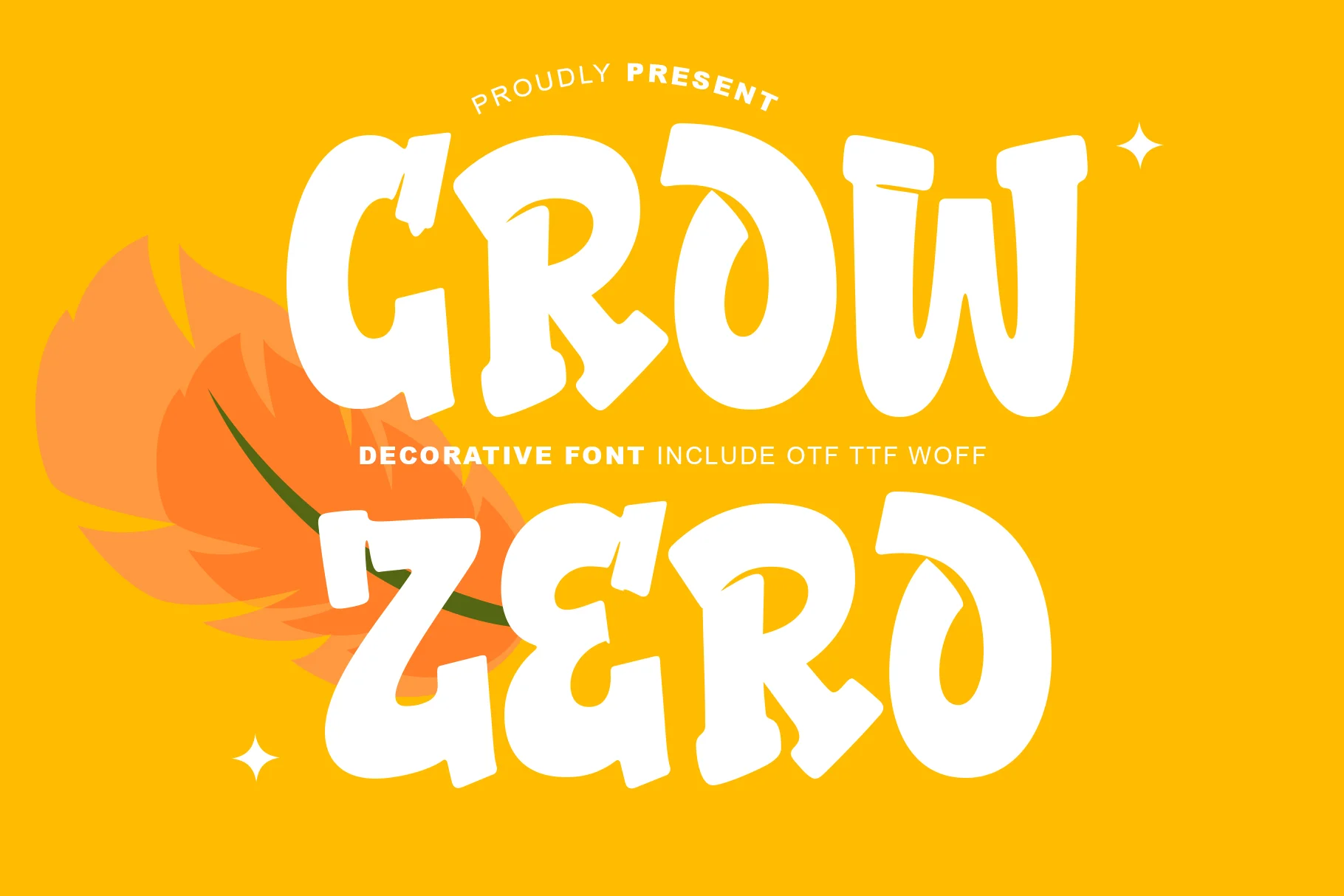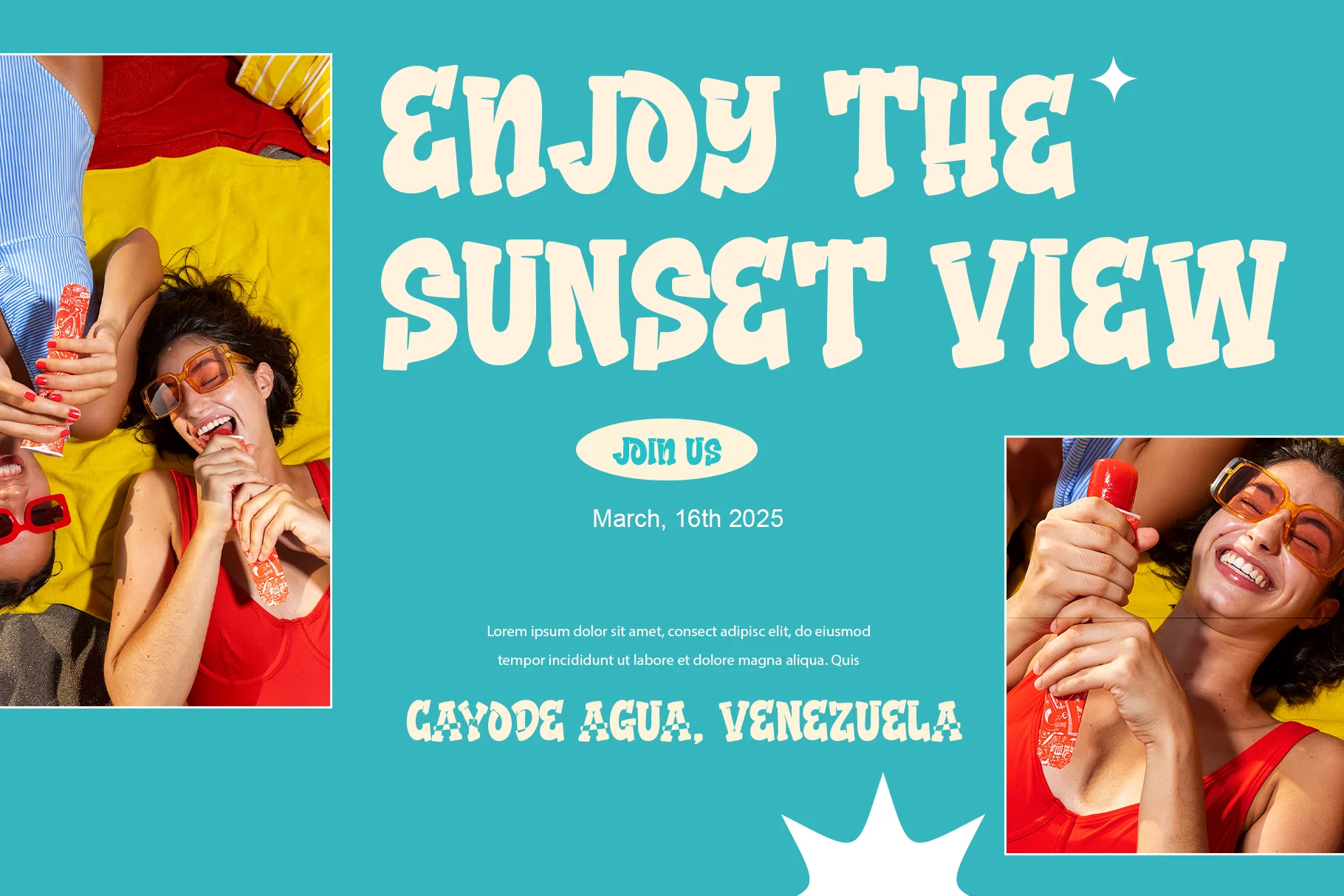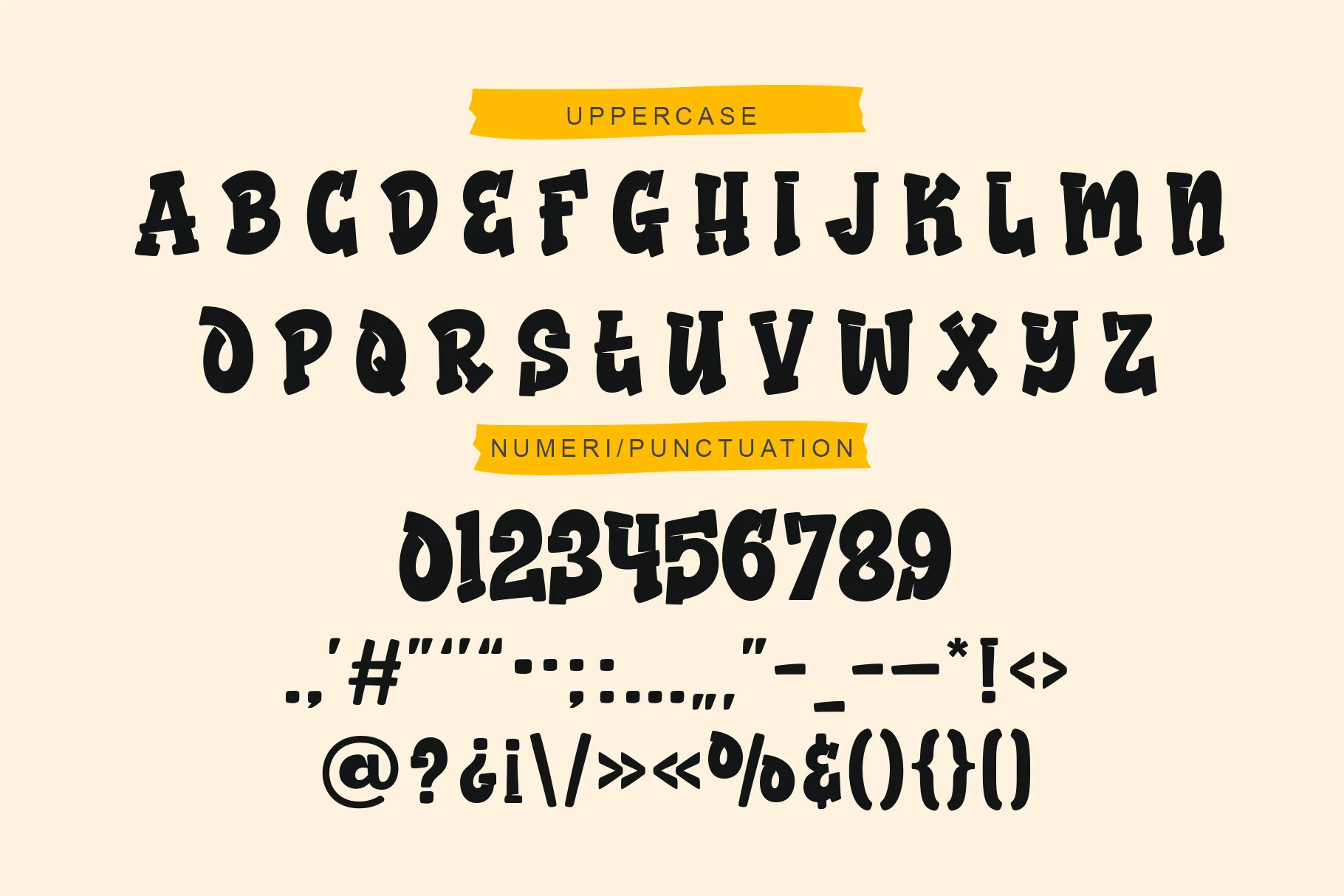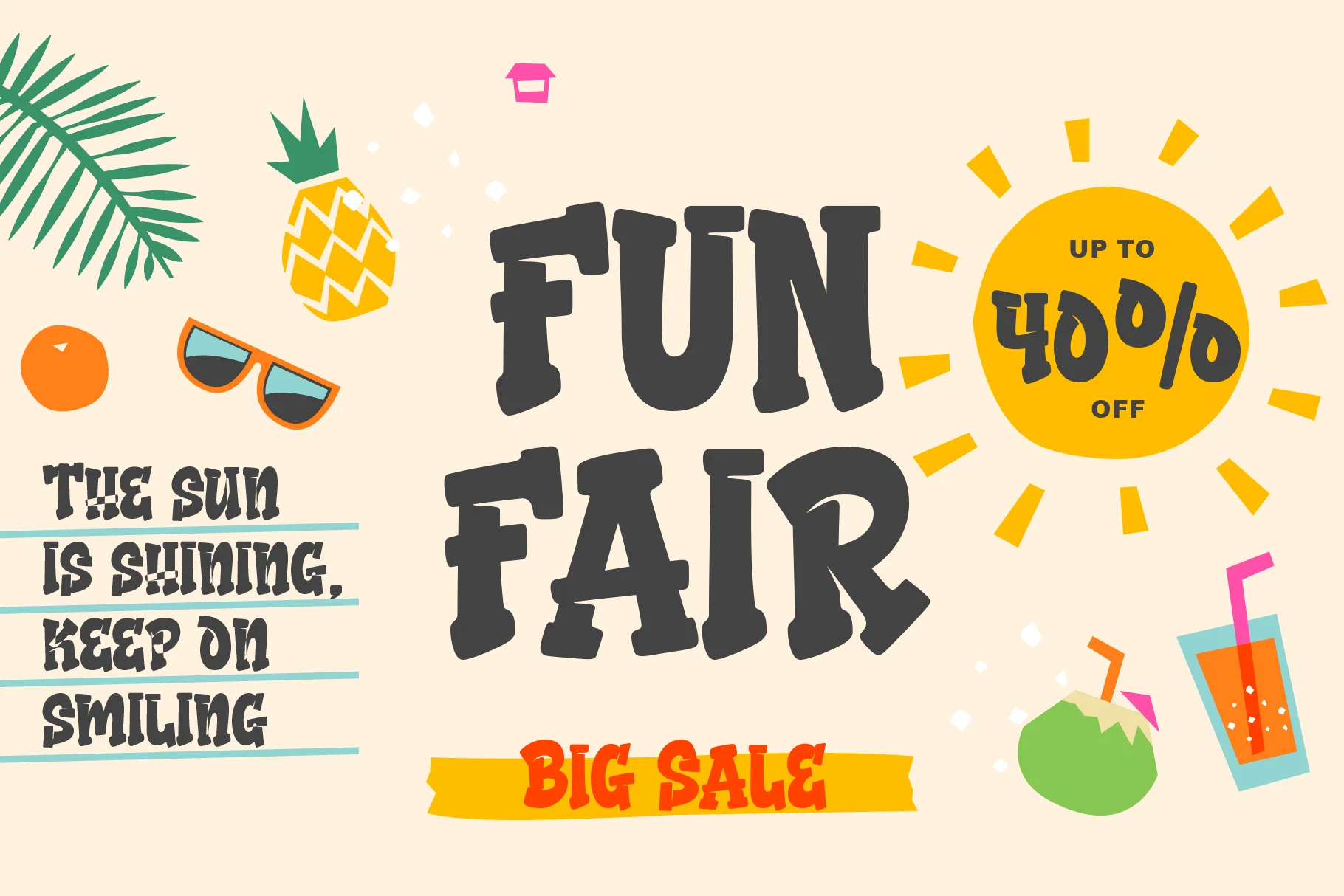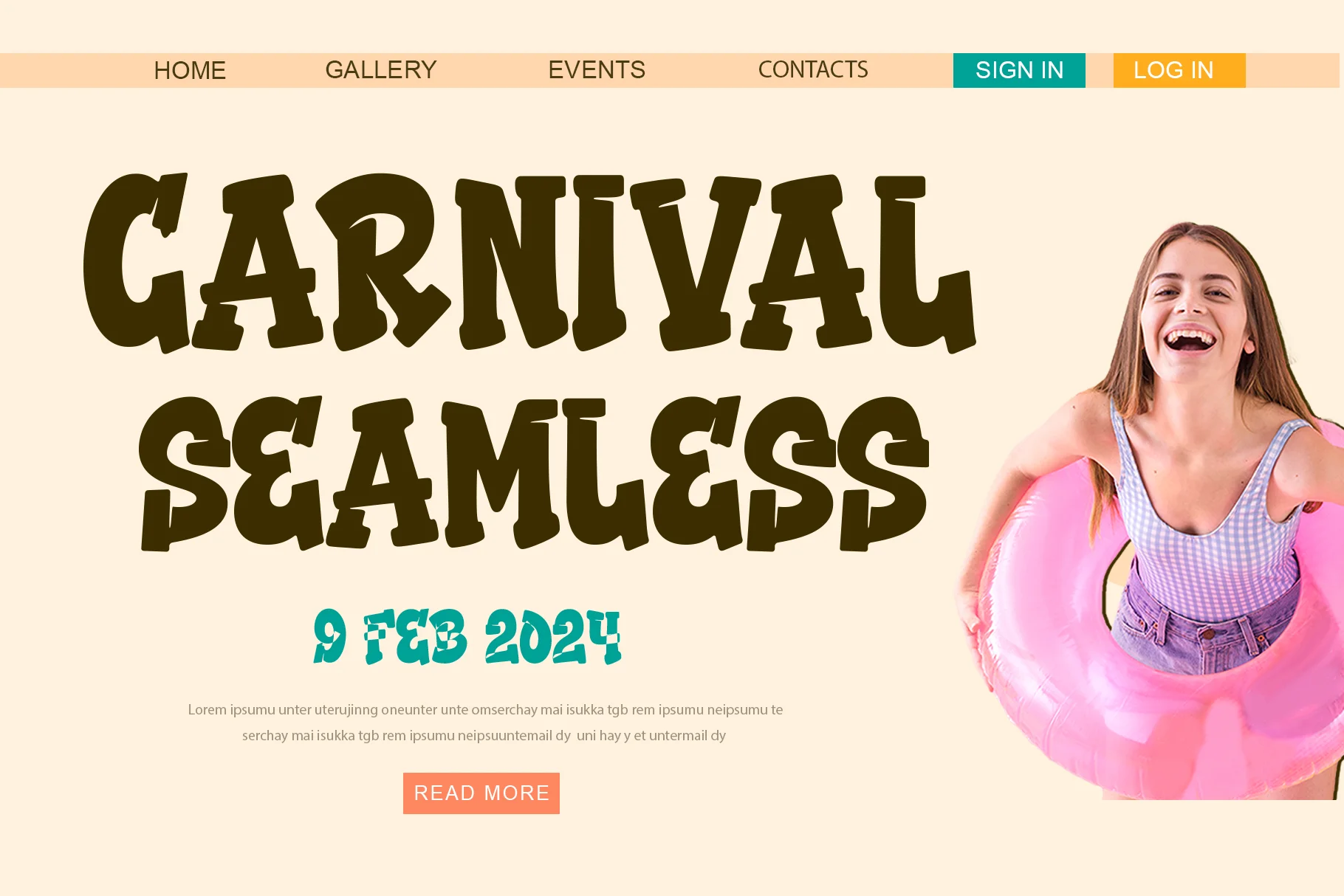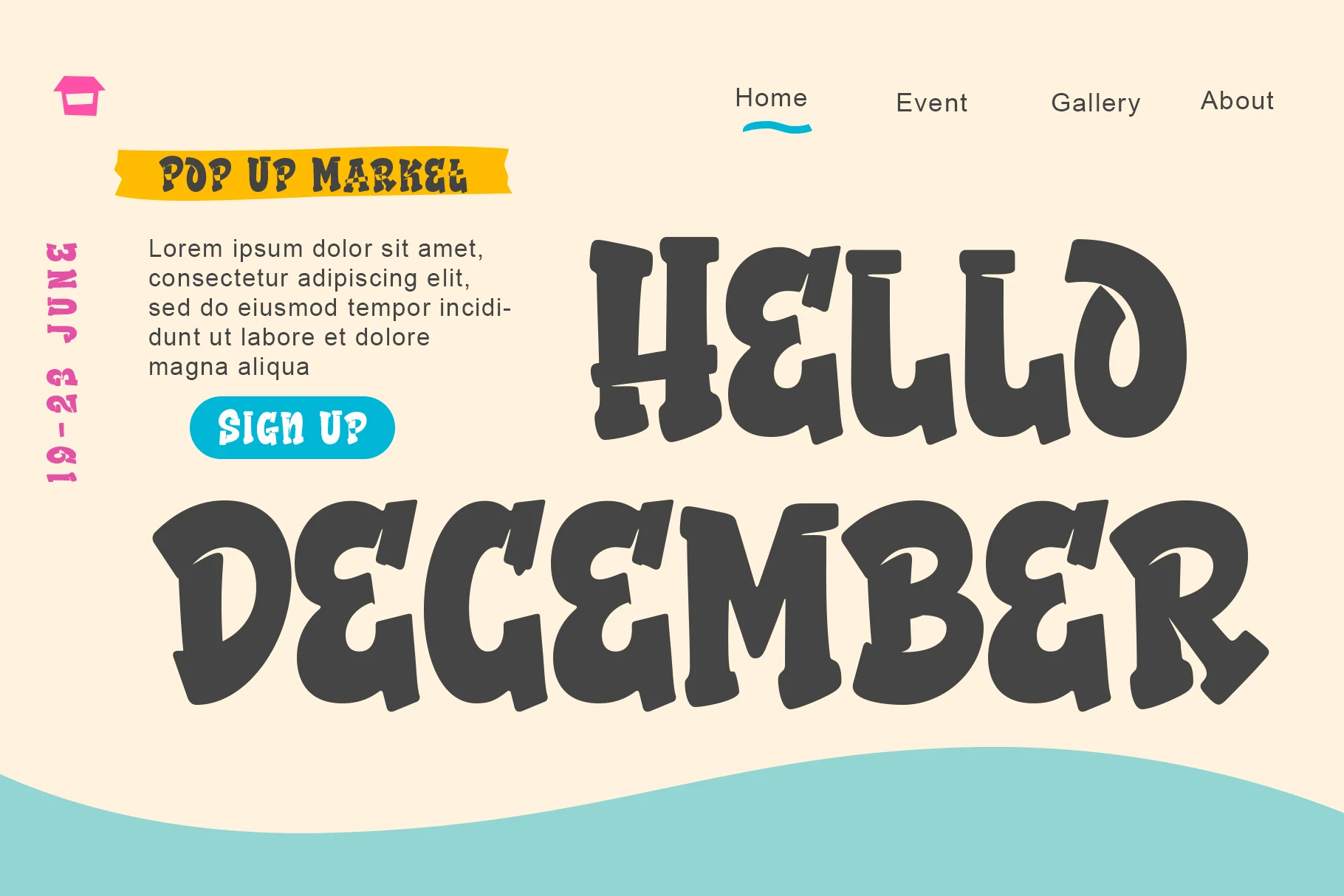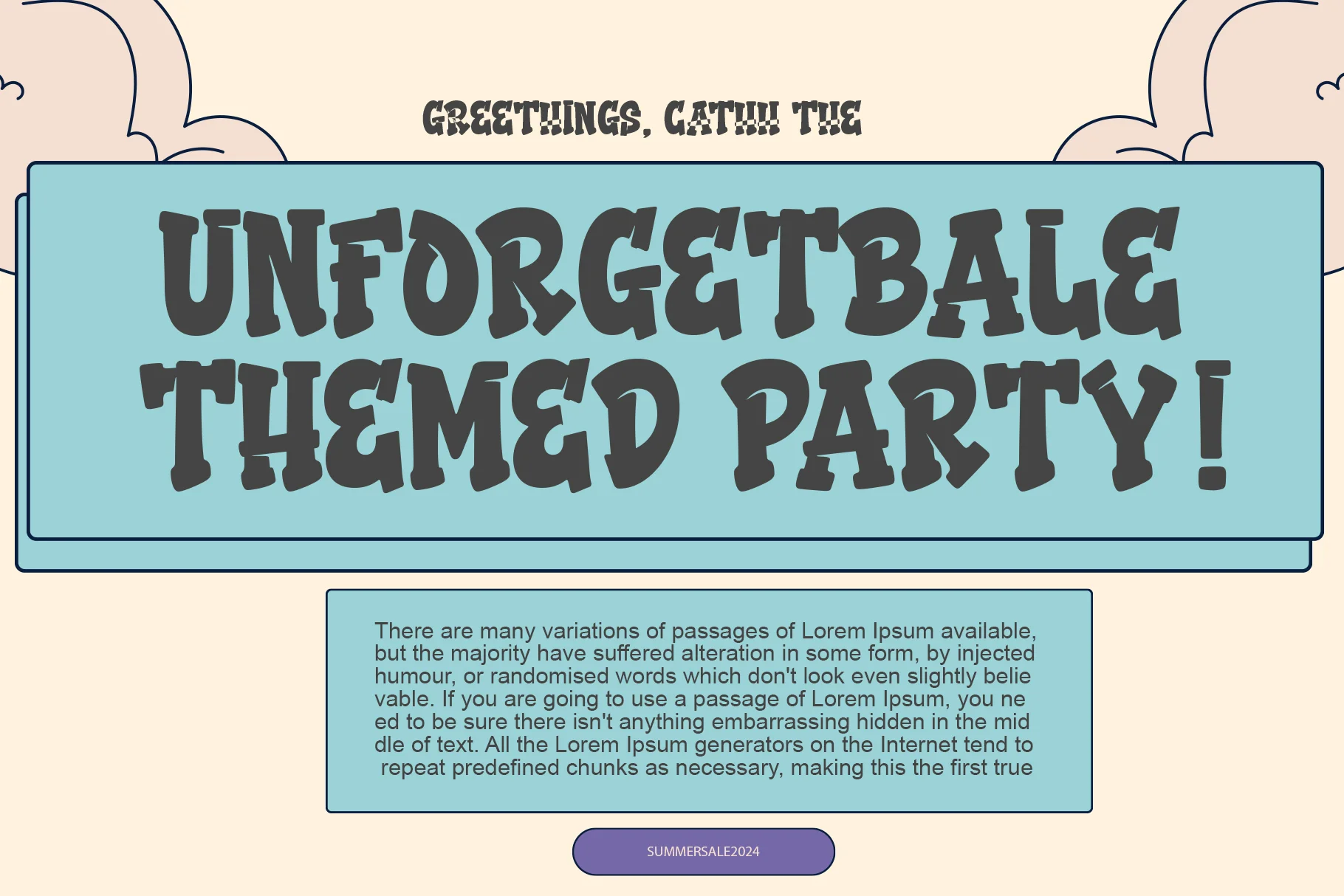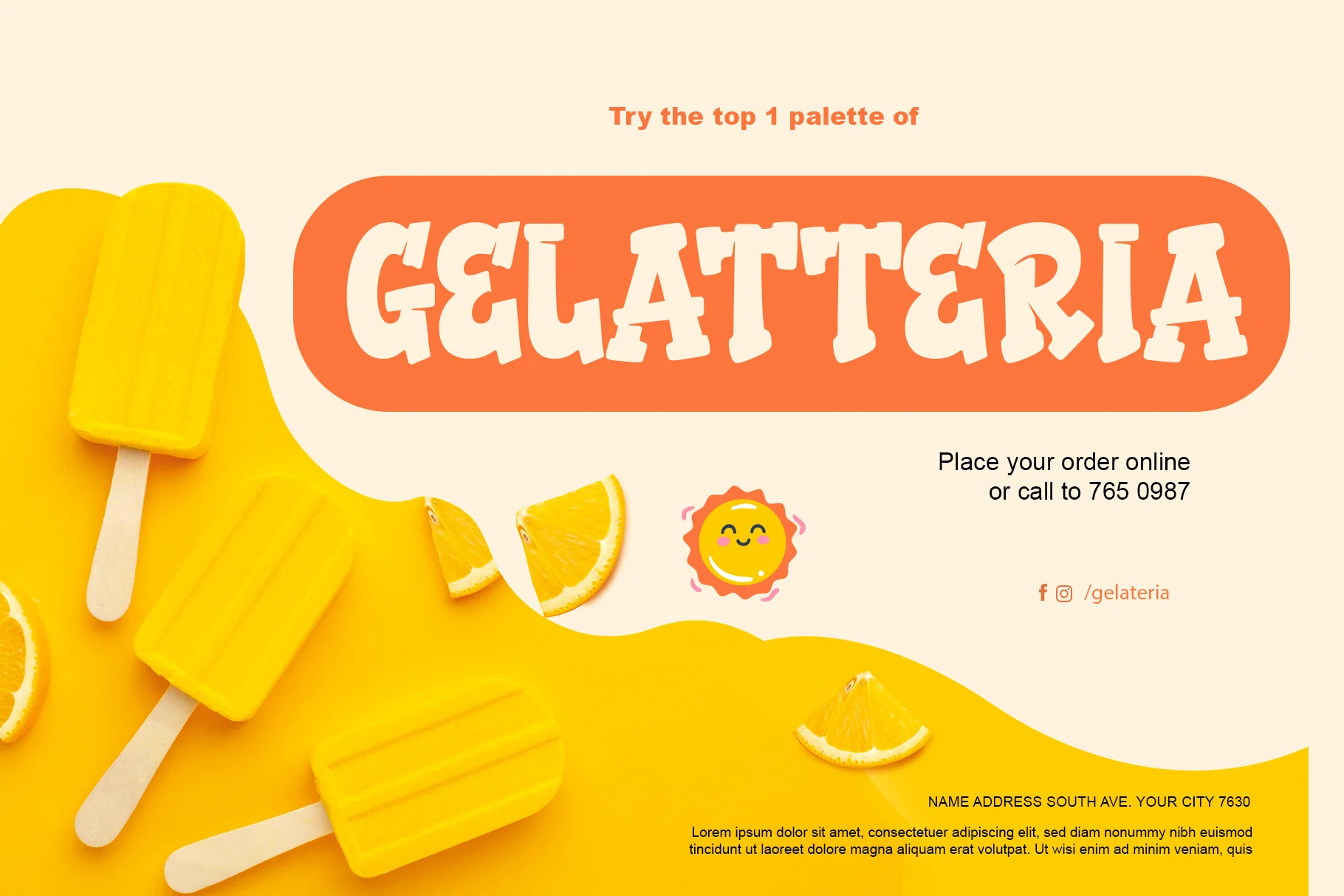
Crow Zero
"Grow Zero" a bold and decorative typeface.The font has a cheerful, energetic, and high-impact appearance, making it suitable for fun, attention-grabbing designs.
- Headers or Titles that require maximum impact (e.g., on posters or flyers).
- Packaging Design for snacks, candies, or children's products.
- Branding or logos for toy stores, unique cafes, or festival events.
- T-shirt or Merchandise designs with strong character.
- Uppercase and Lowercase – Complete range of letter cases for diverse uses.
- Numerals – Includes numbers for various creative needs.
- Functional – Designed for efficiency and aesthetic appeal.
- Multilingual Support – Includes characters for multiple languages.
- Stylistic Variations – Offers creative style options.